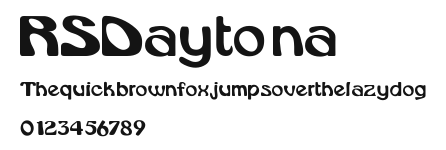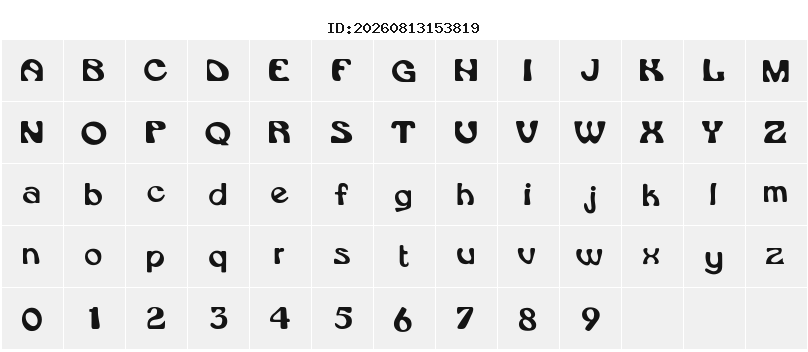
• Font Name: RSDaytona
• Full Font Name: RSDaytona
About RSDaytona.ttf
RSDaytona.ttf is a modern, elegant sans-serif font designed for ultimate readability and visual harmony. Perfect for branding, headlines, web design, and print materials.